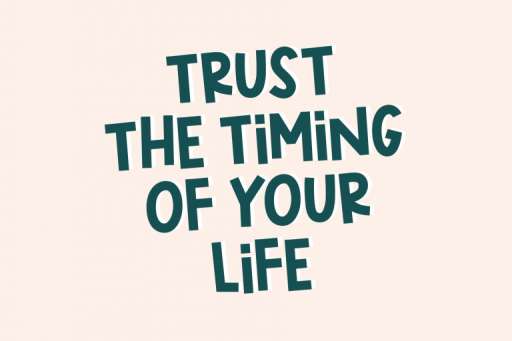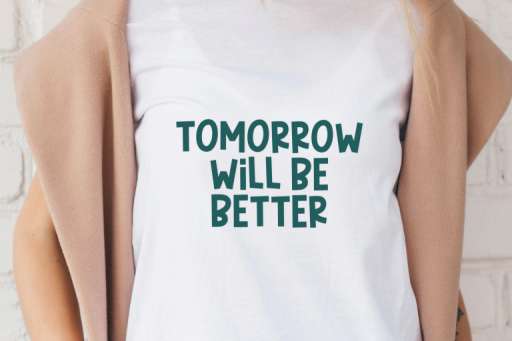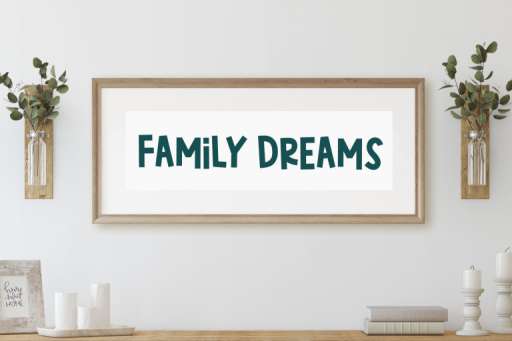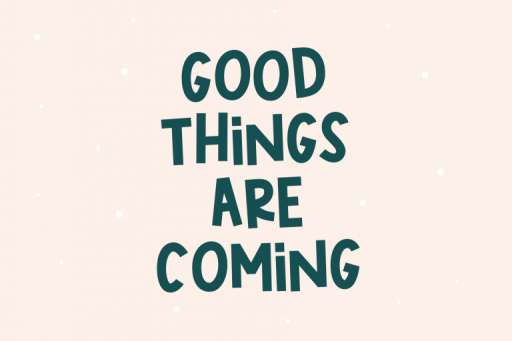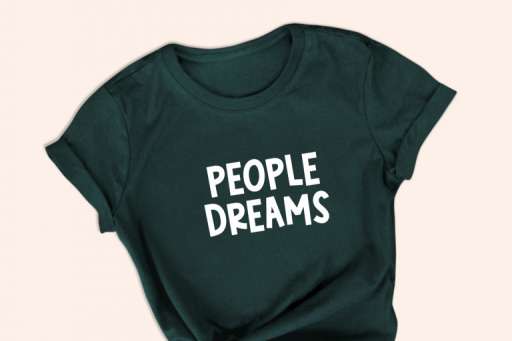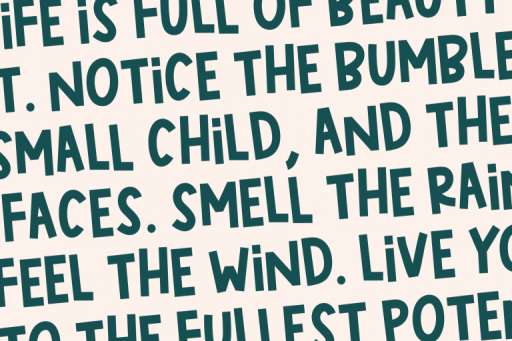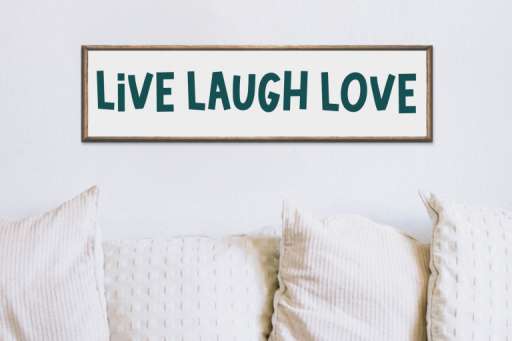
Cheeky Chic Font
Cheeky Chic – Bounce Sans Serif
Cheeky Chic is a handwritten bounce sans serif font. The Cheeky Chic is a great choice for craft projects, svg designs, shirts, stickers, farmhouse designs, logos, book covers, and much more!